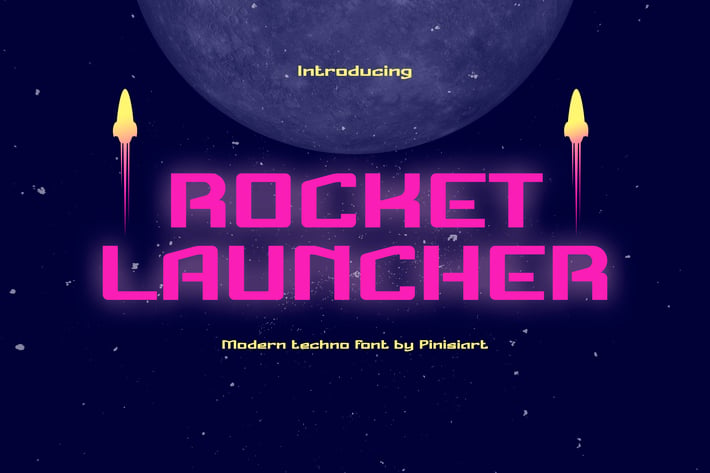
Techno Font - Rocket Launcher
"ROCKET LAUNCHER - Modern Techno Font" is your launchpad to the futuristic realm of technology and modern design. This font embodies the sleek and cutting-edge aesthetics of the future, making it the ultimate choice for tech-savvy projects, sci-fi themes, and displays that demand a futuristic touch. Whether you're creating content for technology companies, futuristic branding, or any design that requires a forward-thinking style, ROCKET LAUNCHER delivers.
Its bold and dynamic letters capture the essence of innovation and progress, ensuring your designs stand out in the digital landscape. Embrace the future with ROCKET LAUNCHER and watch your creations soar to new heights with a font that's lightyears ahead of the competition.
Basic Latin A-Z and a-z